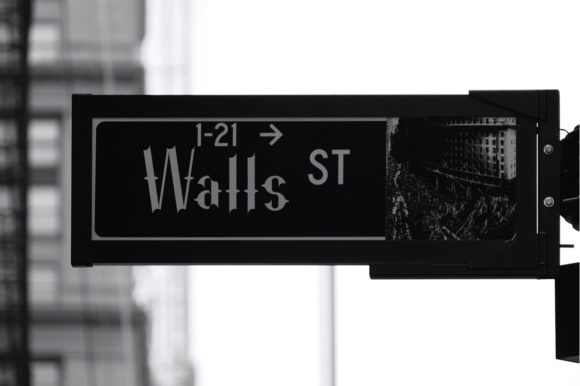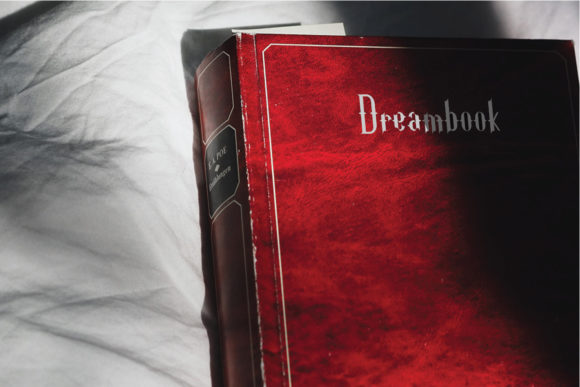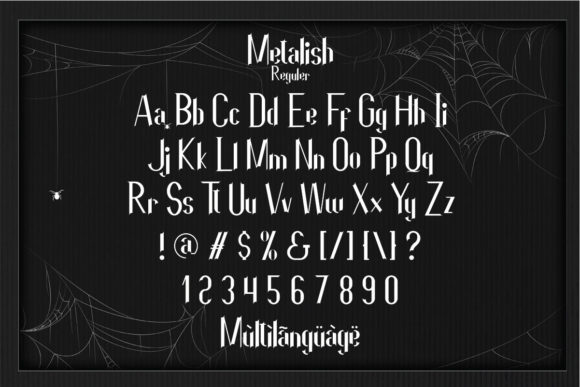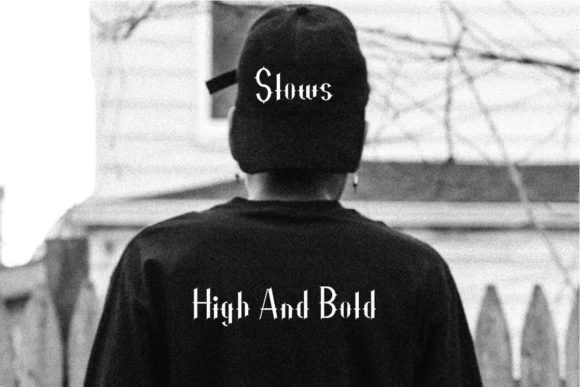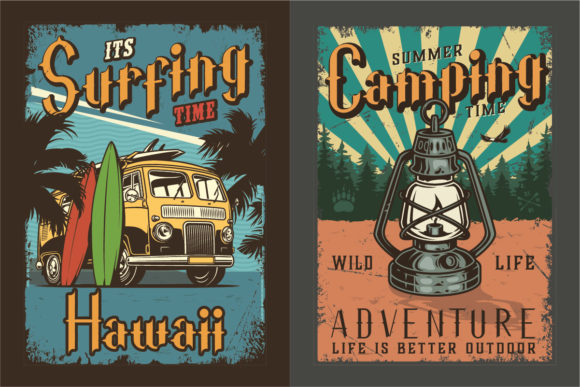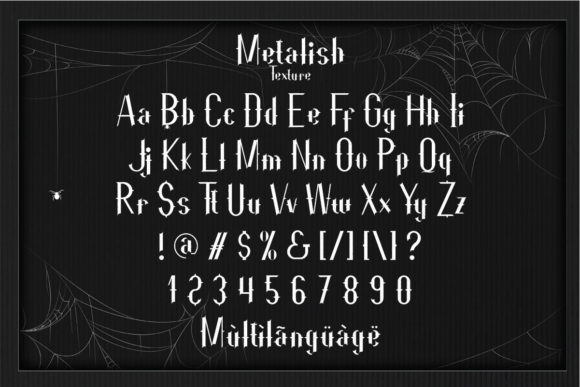
Introduction to Metalish Font
Metalish is an incredibly cool and mystic looking display font.
It will look stunning on any poster flyer or print Use this font for your designs and explore its endless possibilities.
Key Features of Metalish Font
Why Choose Metalish Font?
Metalish Font offers exceptional quality and versatility, making it a valuable addition to your design toolkit. Whether you’re creating for personal projects or commercial use, Metalish Font delivers professional results.